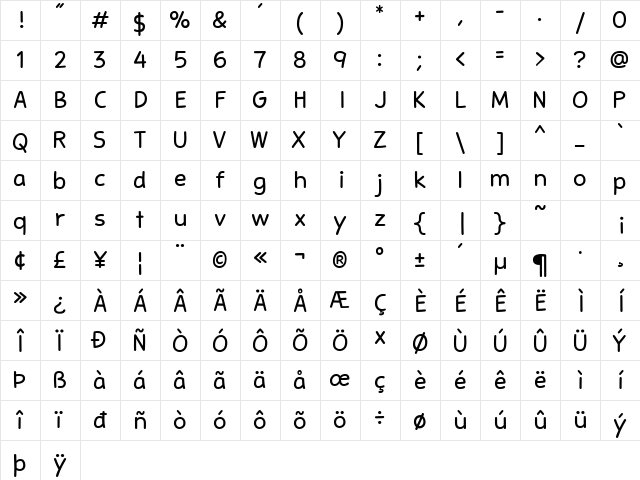
Stanberry Regular
| Designer | Jayvee D. Enaguas (GrandChaos) |
Design Context for Stanberry Typeface
Stanberry is a composed and adaptable typeface that performs quietly and consistently across a wide range of design contexts.